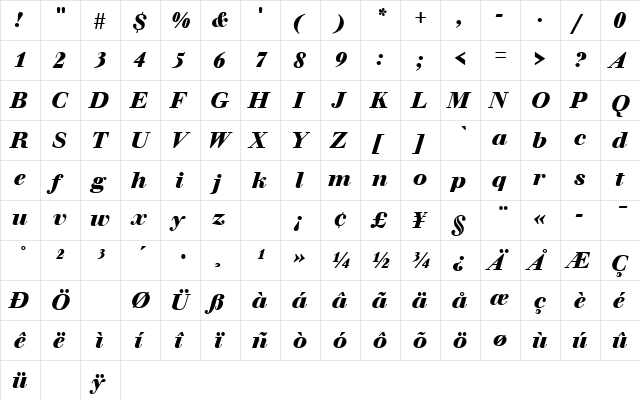
Walbaum Bold Italic
Design Context for Walbaum Typeface
Walbaum is a composed and adaptable typeface that performs quietly and consistently across a wide range of design contexts. Its italic angle brings a sense of urgency and motion to the letterforms. Its bold stroke weight gives it real presence on the page.
Pro Tip: Try Walbaum for annotation and caption copy alongside an upright companion — the contrast in angle creates a dynamic but ordered typographic system.